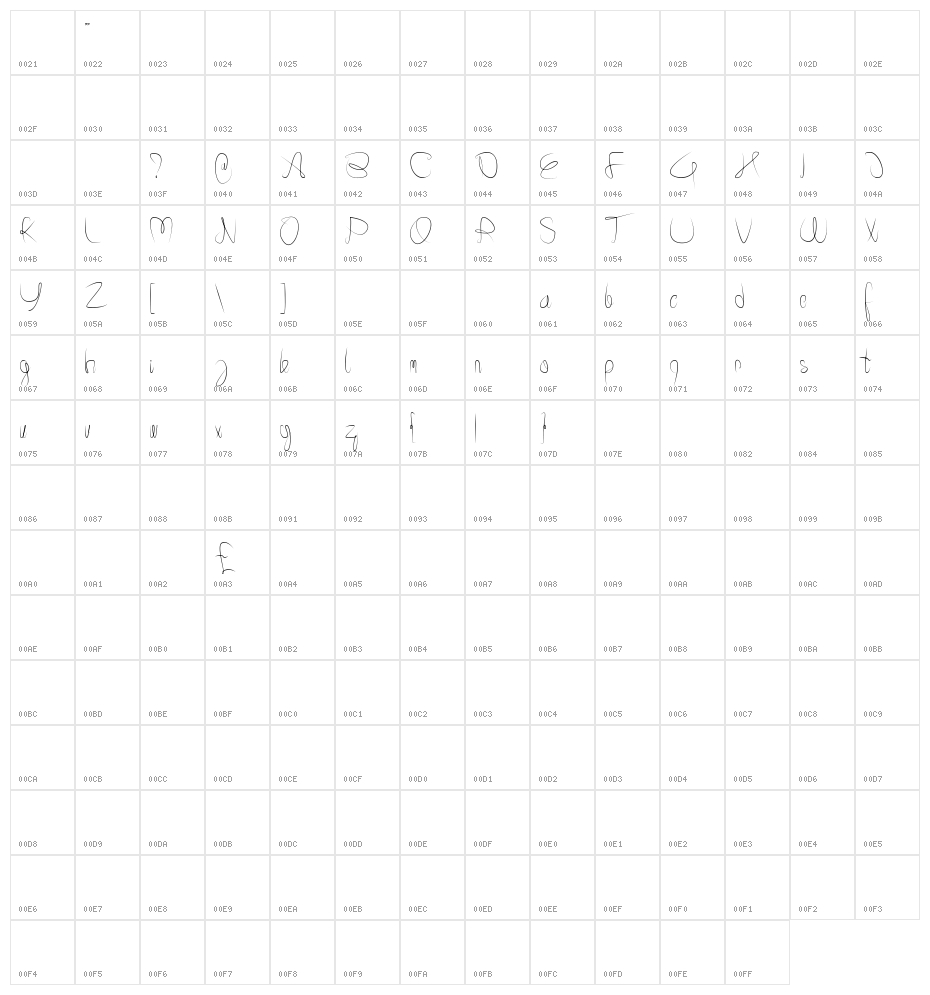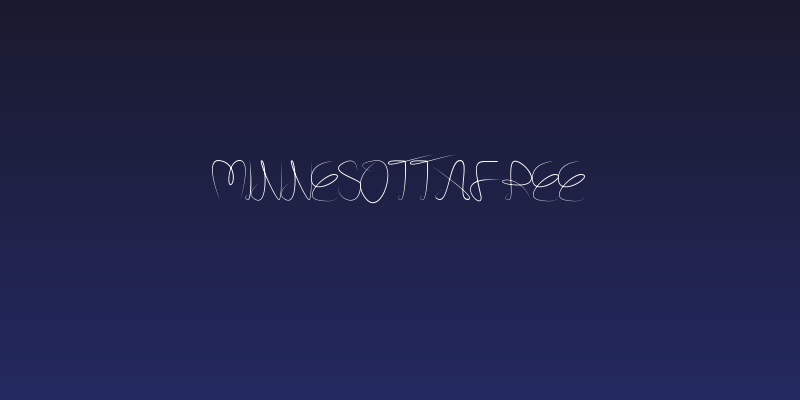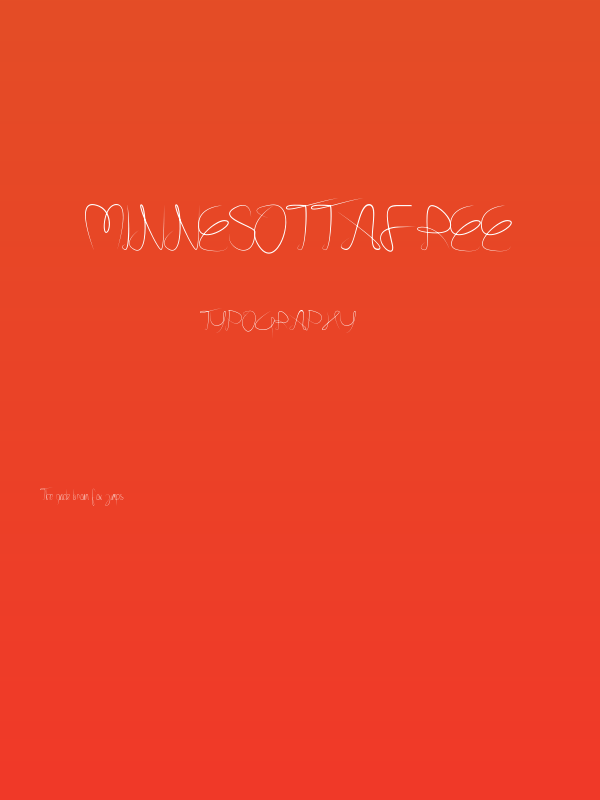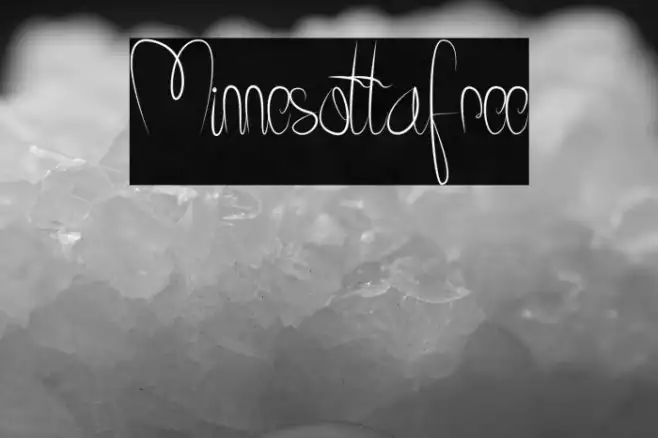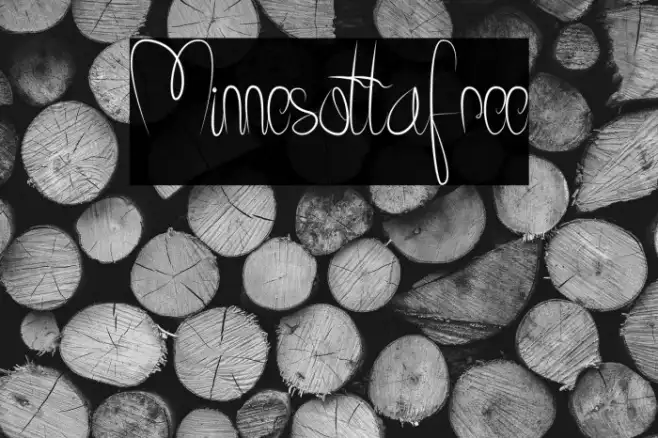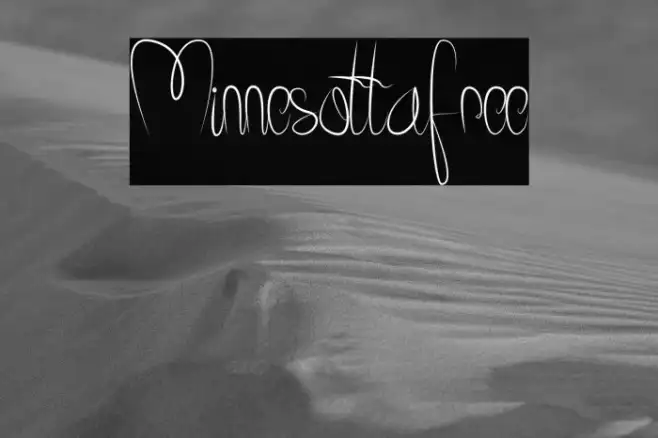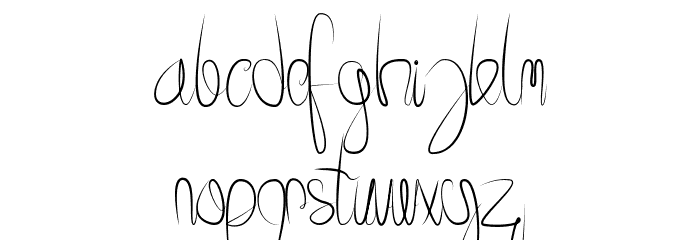
Minnesottafree Font
Minnesottafree Description
This font features an elegant and whimsical design, characterized by its thin, flowing lines and intricate loops. The letters are highly stylized, with a calligraphic influence that gives them a sense of movement and grace. The uppercase letters are distinct with exaggerated curves, while the lowercase letters maintain a consistent fluidity. The numbers and special characters follow the same artistic style, making the font suitable for creative and decorative purposes. Its unique appearance makes it stand out, ideal for projects that require a touch of sophistication and flair.
| Proposed Projects | Ideal for wedding invitations, artistic posters, branding for luxury products, and decorative headings. |